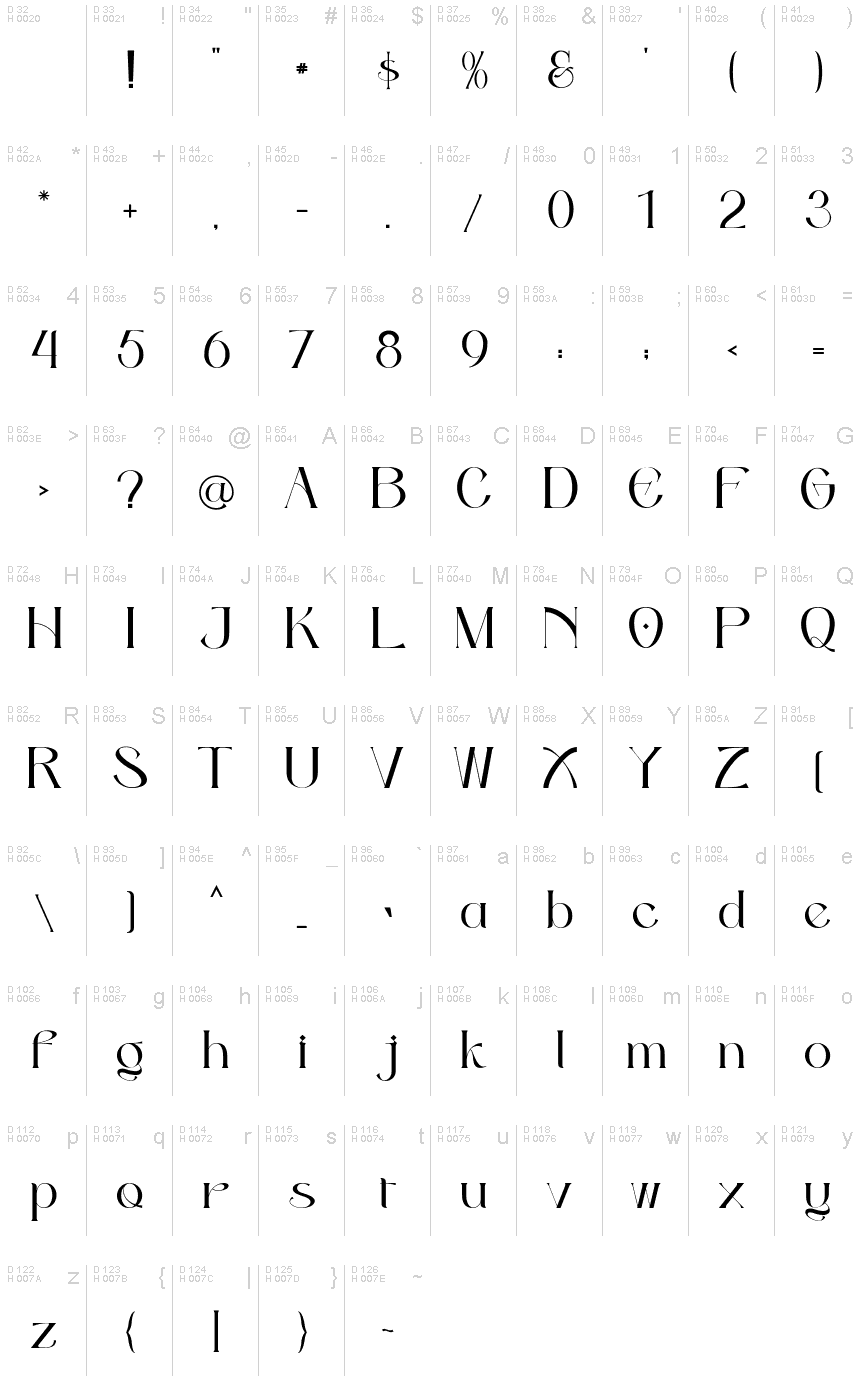
Shopia
Shopia is a modern serif font designed by Salamahtype.com. With its semi-light weight, this font exudes elegance and sophistication. Its clean lines and contemporary style make it perfect for various projects, such as branding for high-end fashion labels, upscale beauty products, and luxurious lifestyle magazines. The semi-light font adds a touch of subtlety and refinement to any design, making it suitable for creating elegant wedding invitations, sophisticated menus for fine dining establishments, or even sleek corporate presentations. Let Shopia elevate your designs with its modern flair and timeless appeal.